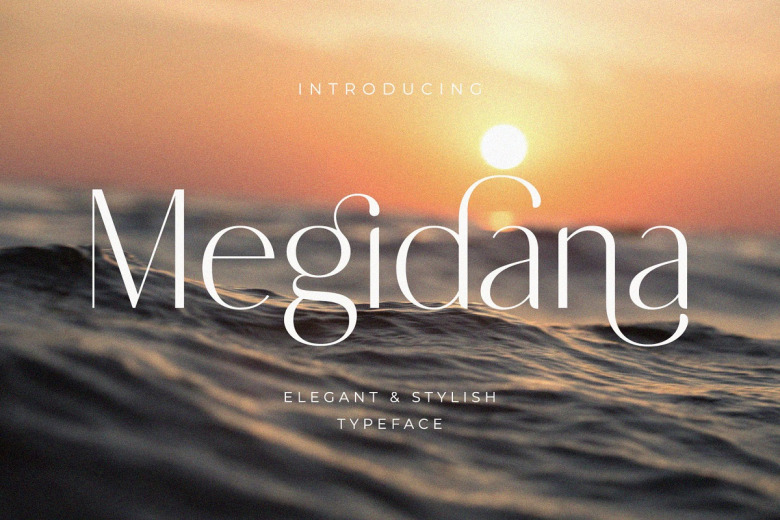
Megidana Font
Megidana is a slim and elegant sans-serif typeface. It has a beautiful, balanced character that is well suited to the wealth of designs in all shapes and sizes. This font is PUA coded – which means you can simply access all the glyphs and swooshs that are available below.
Megidana Sans Serif Font